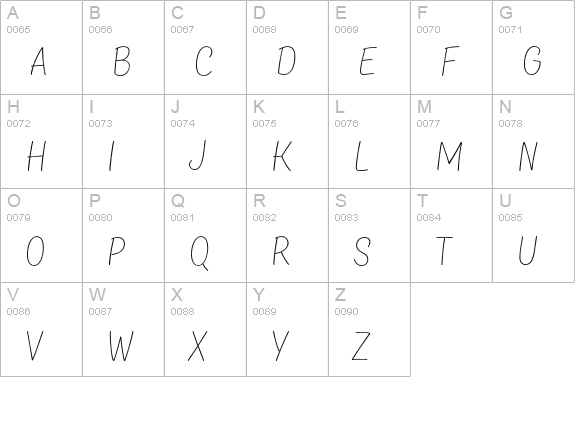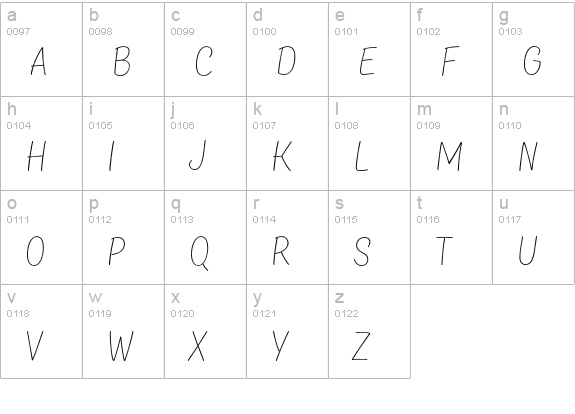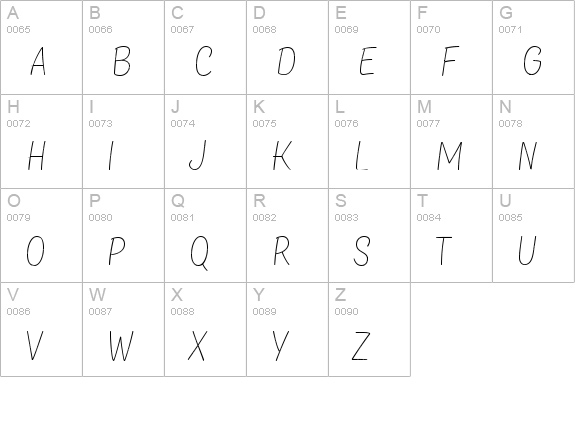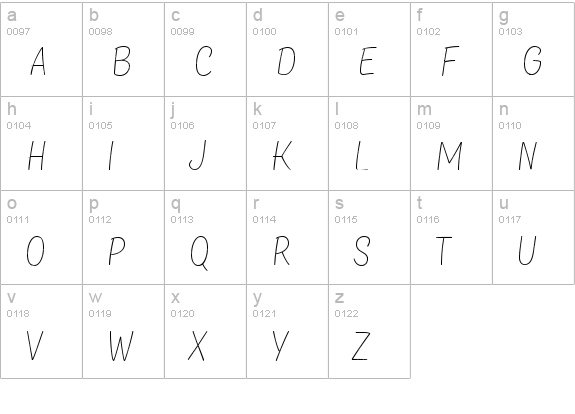
TT Masters DEMO Rough Thin Font Details
TT Masters DEMO Rough Thin is a delicate, low-contrast variant in the TT typeface family \xE2\x80\x94 well suited to fashion editorial, minimal branding, and high-contrast display.
Introducing TT Masters DEMO Rough Thin font, a stunning display typeface designed to make a bold statement. This unique font features a rough and thin style that adds a touch of edginess to any project. With its versatile design, TT Masters DEMO Rough Thin font is perfect for creating eye-catching logos, posters, headlines, and more. Best of all, this font is available for free download at FontsMarket.com. Whether you're a seasoned designer or just starting out, TT Masters DEMO Rough Thin font is sure to inspire your creativity and add a touch of sophistication to your designs. Download it today and elevate your projects with this exceptional typeface.